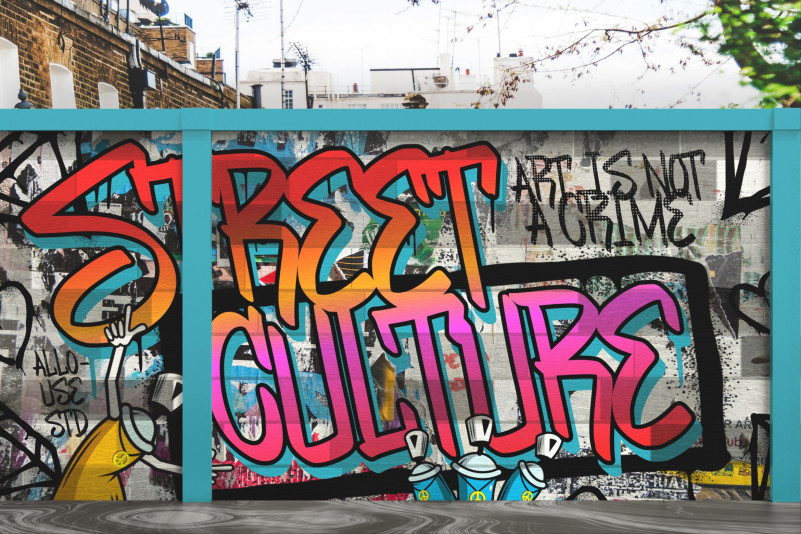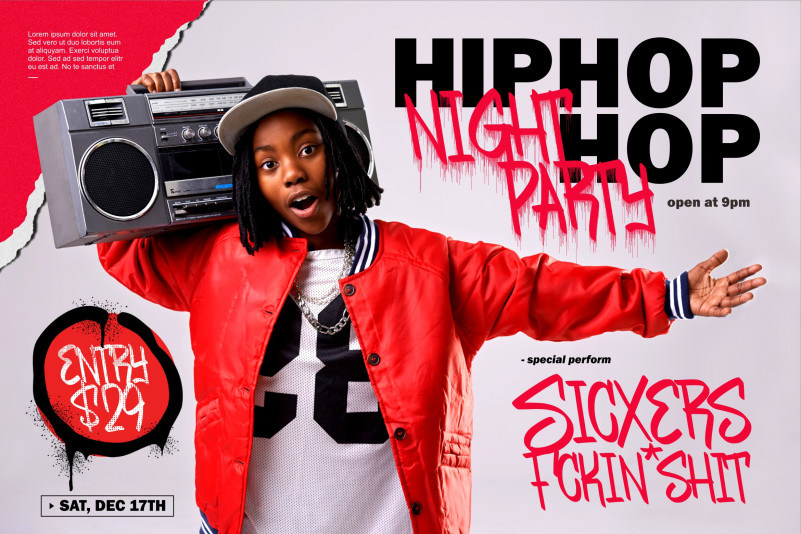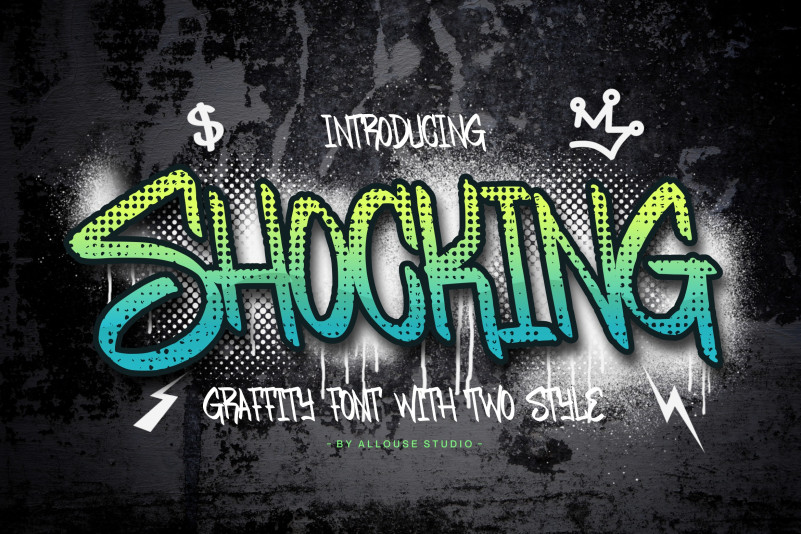
Shocking Font
Shocking Display Font, Its optimum legibility, clean, and geometric look is perfect branding, brochures, greeting cards, quotes, posters, stationary, design titles, blog headers, and much more.